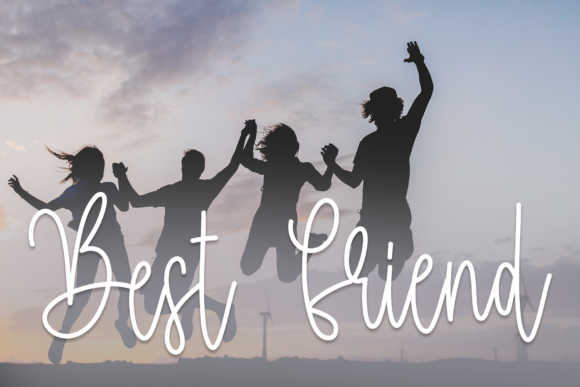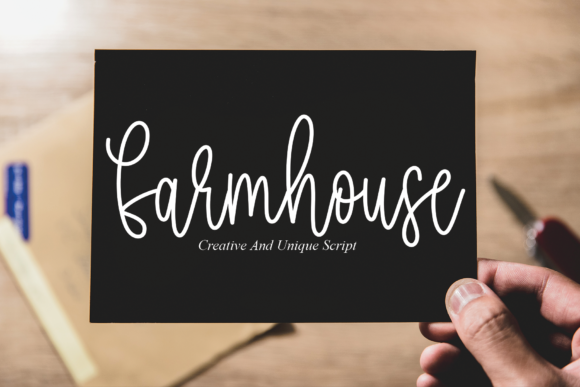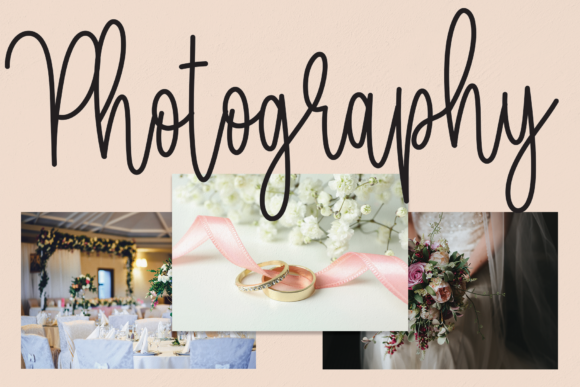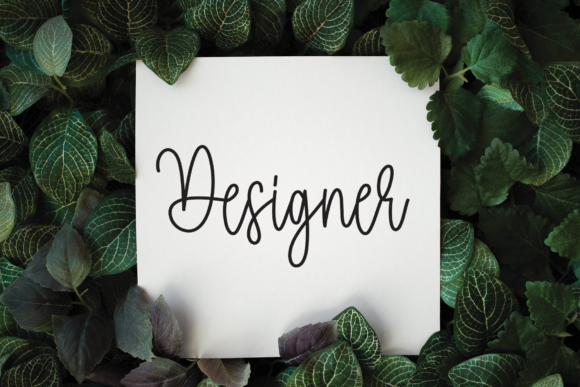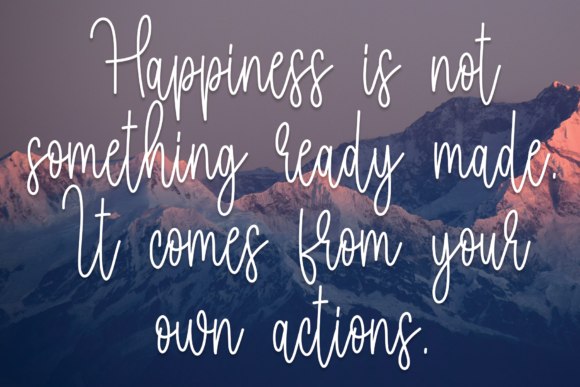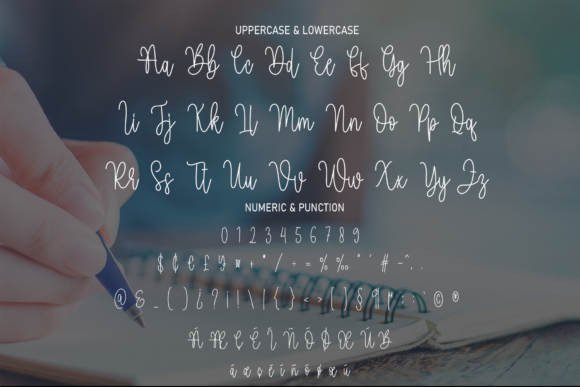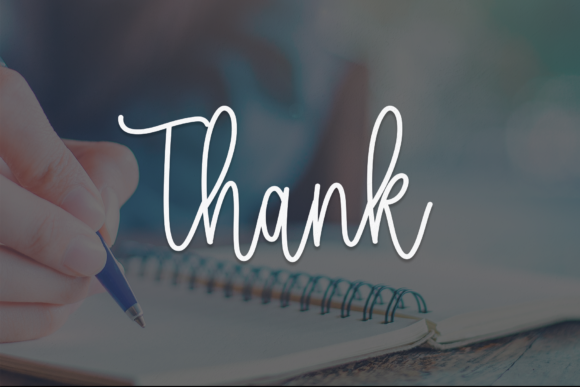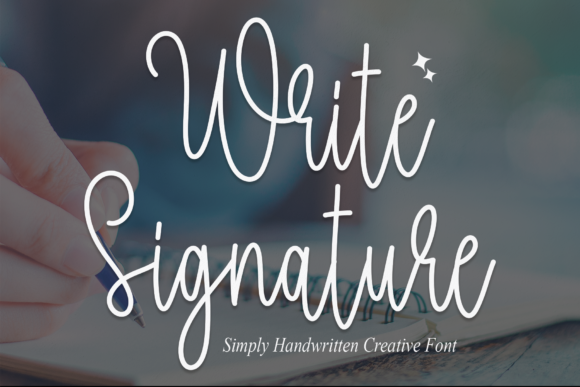
Write Signature Font
“Write Signature is not just a font; it’s a work of art. This delicate and fashionable script font is a testament to the beauty of typography. With its unique style and character, Write Signature is designed to make an impact. It’s more than just a typeface; it’s a tool for creating stunning visuals that captivate and inspire.
One of the standout features of Write Signature is its versatility. It is perfect for any branding project, from logos to t-shirt printing, creative products, and more. Whether you’re a professional designer working on a major branding project or a hobbyist creating personalized items, Write Signature is the font for you.
But Write Signature is not just versatile; it’s also fashionable. With its modern and stylish design, Write Signature is a font that stays ahead of the trends. It’s a font that makes a statement, a font that stands out. Whether you’re creating a logo for a cutting-edge fashion brand or designing a poster for a trendy event, Write Signature is the font that will help you make a statement.
Moreover, Write Signature is designed to look extraordinary in a variety of contexts. Whether it’s on a business card, a website, a billboard, or a t-shirt, Write Signature shines. Its unique style and character make it a versatile and adaptable font that can elevate any design.
But the beauty of Write Signature goes beyond its design. It’s also a font that’s easy to use. With its clear and legible characters, Write Signature is a font that’s easy to read and understand. This makes it a great choice for designs that need to communicate clearly and effectively.
In conclusion, Write Signature is a delicate and fashionable script font that’s perfect for any branding project. With its unique style and versatility, it’s a font that can make any design stand out. Whether you’re a professional designer or a hobbyist, Write Signature is a font that’s worth checking out.”